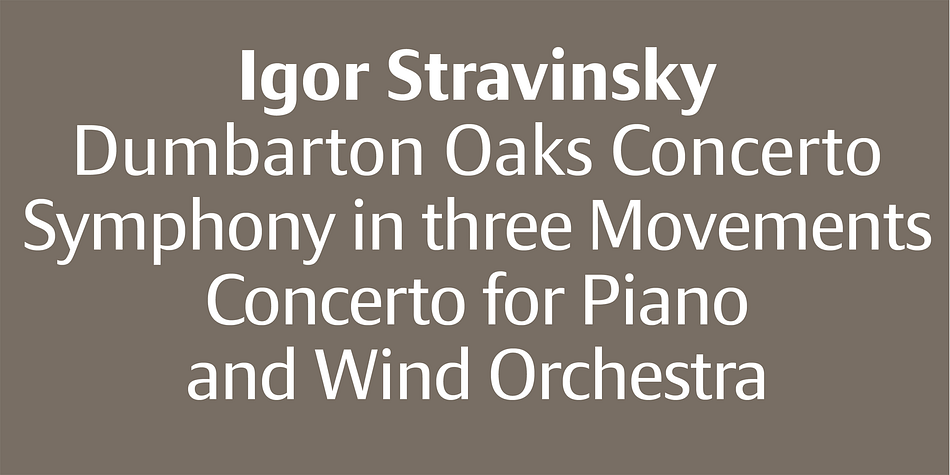
Taxon
Designed by Dieter Hofrichter, Taxon is a sans serif font family. This typeface has twelve styles and was published by Hoftype.
Taxon is a straightlined Sans with a clean, fresh and unsentimental look. Related to classical faces like Optima and Imago, it appears more contemporary and merges the austere linearity of the Grotesk with the elegance of the Antiqua.
The Taxon family consists of 12 styles and is well suited for ambitious typography. It comes in OpenType format with extended language support. All weights contain ligatures, superior characters, proportional lining figures, tabular lining figures, proportional old style figures, lining old style figures, matching currency symbols, fraction- and scientific numerals, matching arrows and alternate characters.